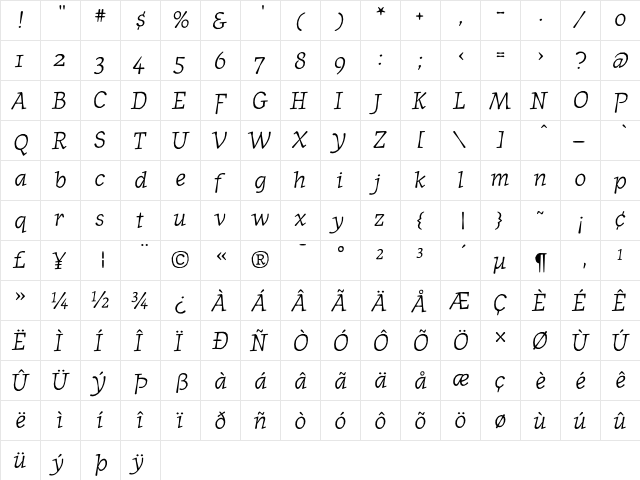
JournalItalicOldstyle Regular Font Preview
JournalItalicOldstyle Regular
JournalItalicOldstyle Regular Font Details
Design Context for JournalItalicOldstyle Typeface
JournalItalicOldstyle carries the refined structure of traditional serif typography, with bracketed terminals and considered proportions that communicate credibility and craft. The dynamic lean of this cut emphasises speed and emphasis in any layout.